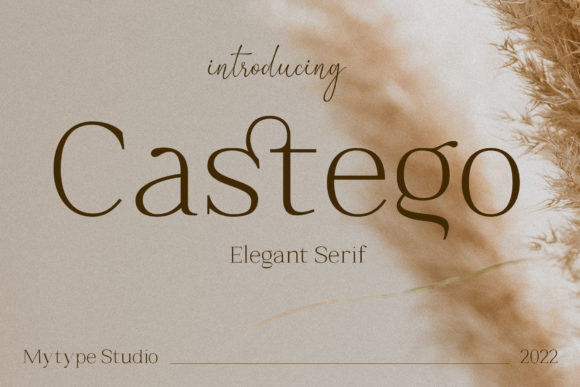
**Introducing Castego: The Serif Font That Will Make Your Brand Stand Out**
Are you ready to elevate your brand's identity to new heights? Look no further than Castego, the captivating serif font that will make your designs shine. Crafted with meticulous attention to detail by the renowned Mytype Studio, Castego is the embodiment of elegance and sophistication.
Unleash the power of this modern serif font and watch as your brand transforms into a captivating visual masterpiece. Castego's delicately curved serifs and graceful letterforms dance across the canvas, creating an unforgettable impression that lingers in the minds of your audience.
**Why Castego is the Perfect Choice for Your Brand:**
* **Exude Luxury and Sophistication:** Castego's timeless design exudes an air of luxury and sophistication, making it the perfect choice for brands seeking to convey a sense of exclusivity and prestige.
* **Create Unforgettable Logos:** Design a brand logo that commands attention and leaves a lasting impact. Castego's strong and distinctive characters ensure that your logo will stand out from the crowd, becoming an instantly recognizable symbol of your brand.
* **Captivate in Editorial Designs:** Elevate your editorial content to new heights with Castego's classic yet contemporary charm. Its readability and visual appeal make it an ideal choice for magazines, articles, and other written materials.
* **Empower Women-Focused Brands:** Castego's delicate and feminine touches make it the perfect font for brands targeting women. Create designs that resonate with a sophisticated and style-conscious audience.
* **Shine in the Fashion Industry:** Showcase your fashion designs in a captivating light with Castego. Its graceful curves and elegant lines complement the beauty and allure of clothing, accessories, and fashion photography.
* **Make a Statement in Promotional Designs:** Craft promotional materials that entice and persuade. Castego's bold presence and eye-catching details will ensure that your message cuts through the noise and makes a lasting impact.